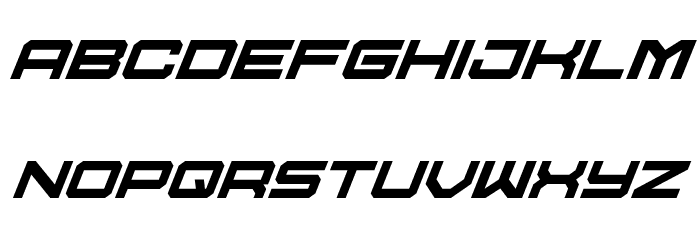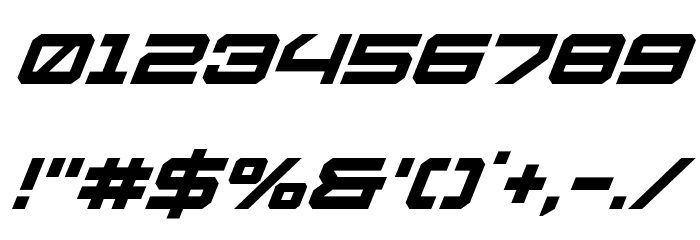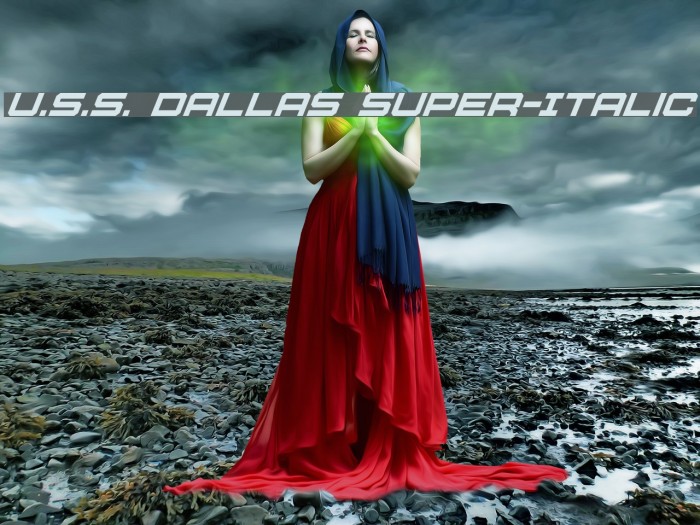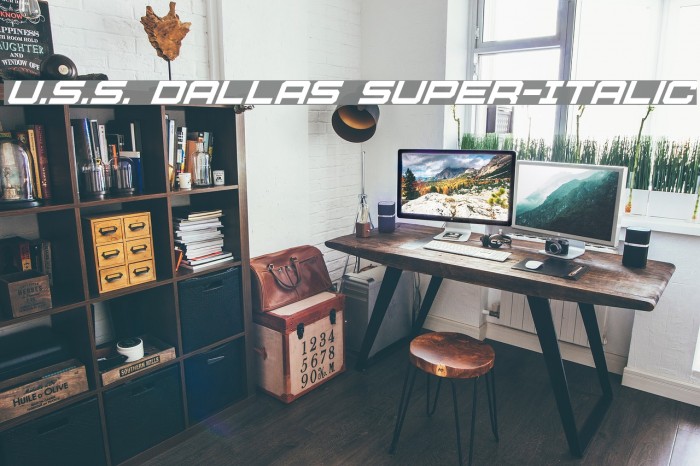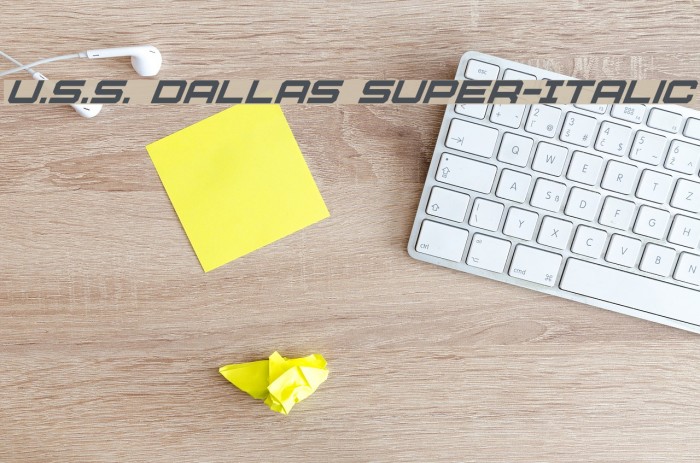
U.S.S. Dallas Super-Italic Font
This font features a futuristic and angular design, characterized by its sharp edges and italicized slant. The letters are bold and dynamic, giving a sense of speed and modernity. The uppercase and lowercase letters maintain a consistent style, with a slight forward tilt that enhances the sense of motion. The numerals and special characters follow the same design principles, ensuring uniformity across all glyphs. The font's geometric shapes and clean lines make it suitable for projects that require a contemporary and tech-savvy appearance.
A futuristic, italicized font with sharp, angular lines and a dynamic slant.
- Proposed Projects: Ideal for technology branding, video game titles, sci-fi movie posters, and automotive advertisements.